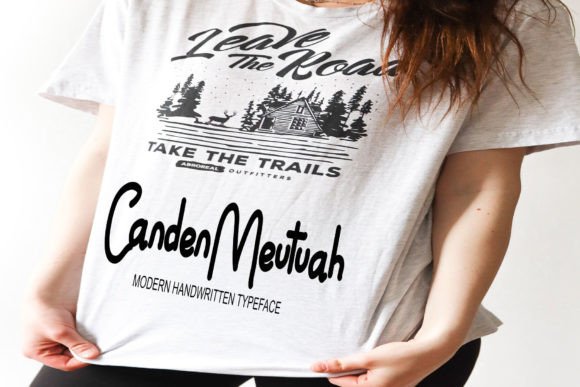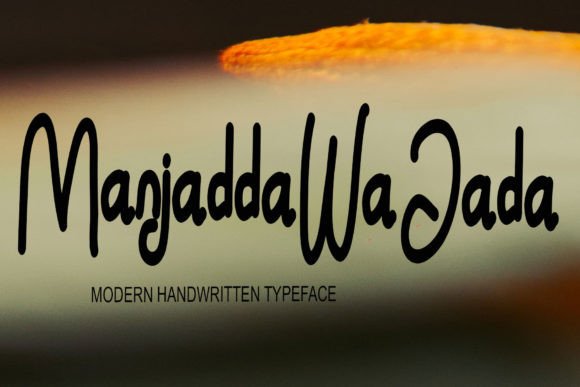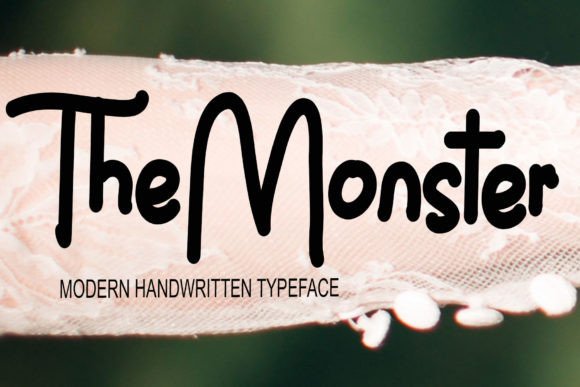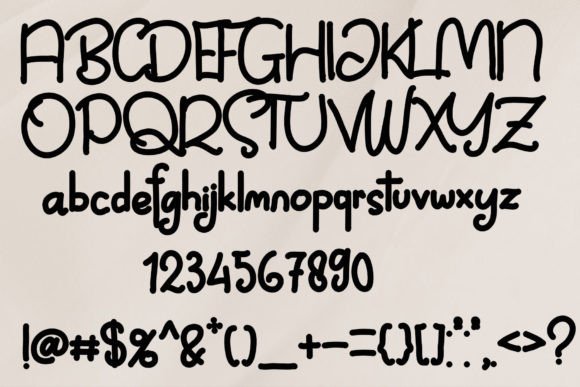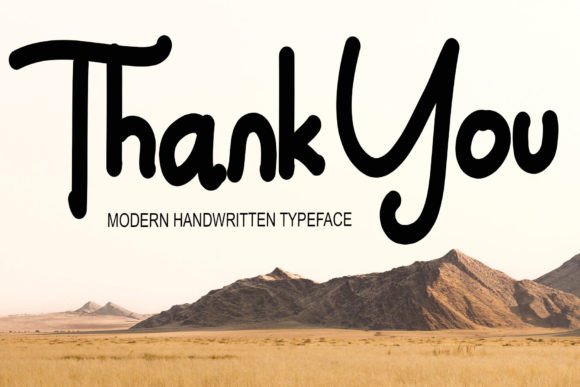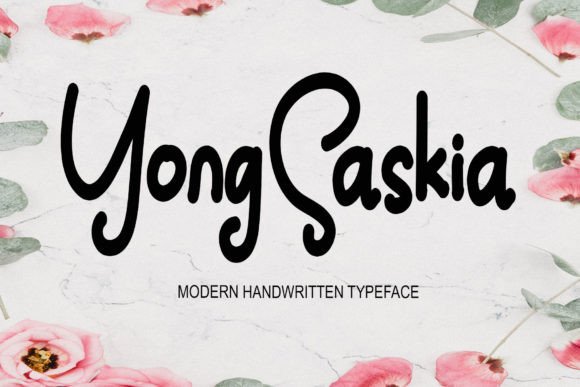
Yong Saskia Font
About Yong Saskia Font
Yong Saskia is a handwritten font written by hand using a tablet. This font is very simple and can be used for websites, wedding invitations, business cards, signatures, and advertisements, be it product advertisements or other advertisements. Even though it looks simple, this font still looks cool and stylish.